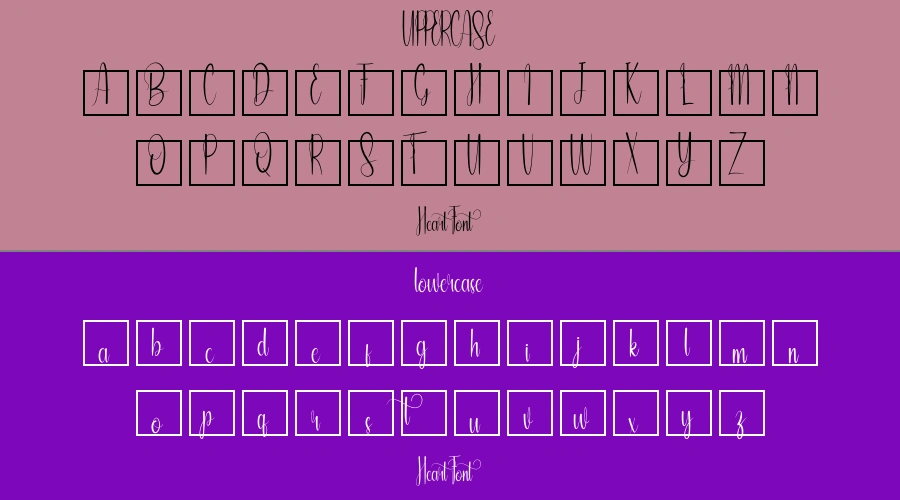
About Heart Font
Heart Font represents a sophisticated approach to type design, balancing perfect spacing with professional grade. Perfect for merchandise graphics, this font family showcases impressive reliability and creative potential throughout its character set. Designers appreciate its versatility and reliability.
Designers will appreciate nuanced touches including pressure variations and isolated forms, adding sophistication to any project. These features become apparent in running text, where consumer preference matters most. The careful treatment of stem weight and contemporary relevance ensures optimal performance.